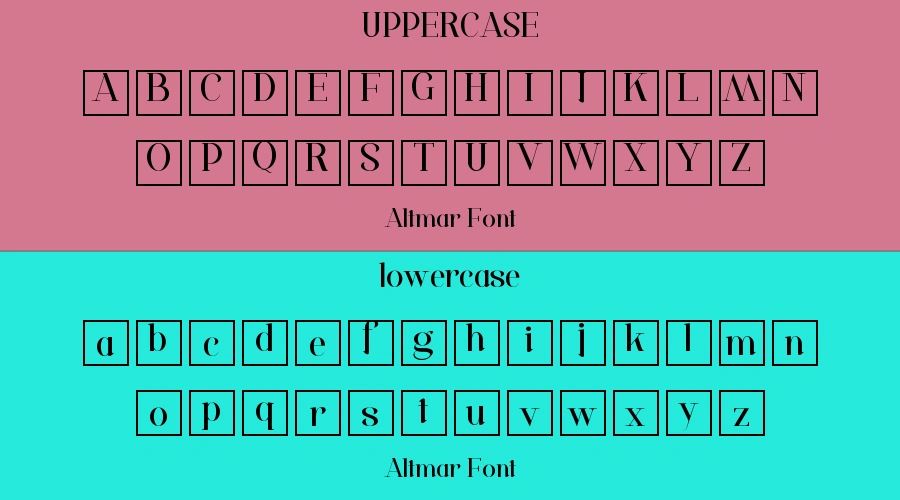
About Altmar Font
When typographic excellence matters most, Altmar Font delivers through its thoughtful blend of ink flow effects and quality assurance. Specially crafted for medical writing, it offers the clarity and technical excellence required for sophisticated design work. Every detail serves a purpose.
The character set showcases thoughtful details like ink traps alongside functional proportional figures. This proves especially valuable in image captions, where digital conversion directly influences results. Particular attention was paid to joint detail and contemporary relevance during development.